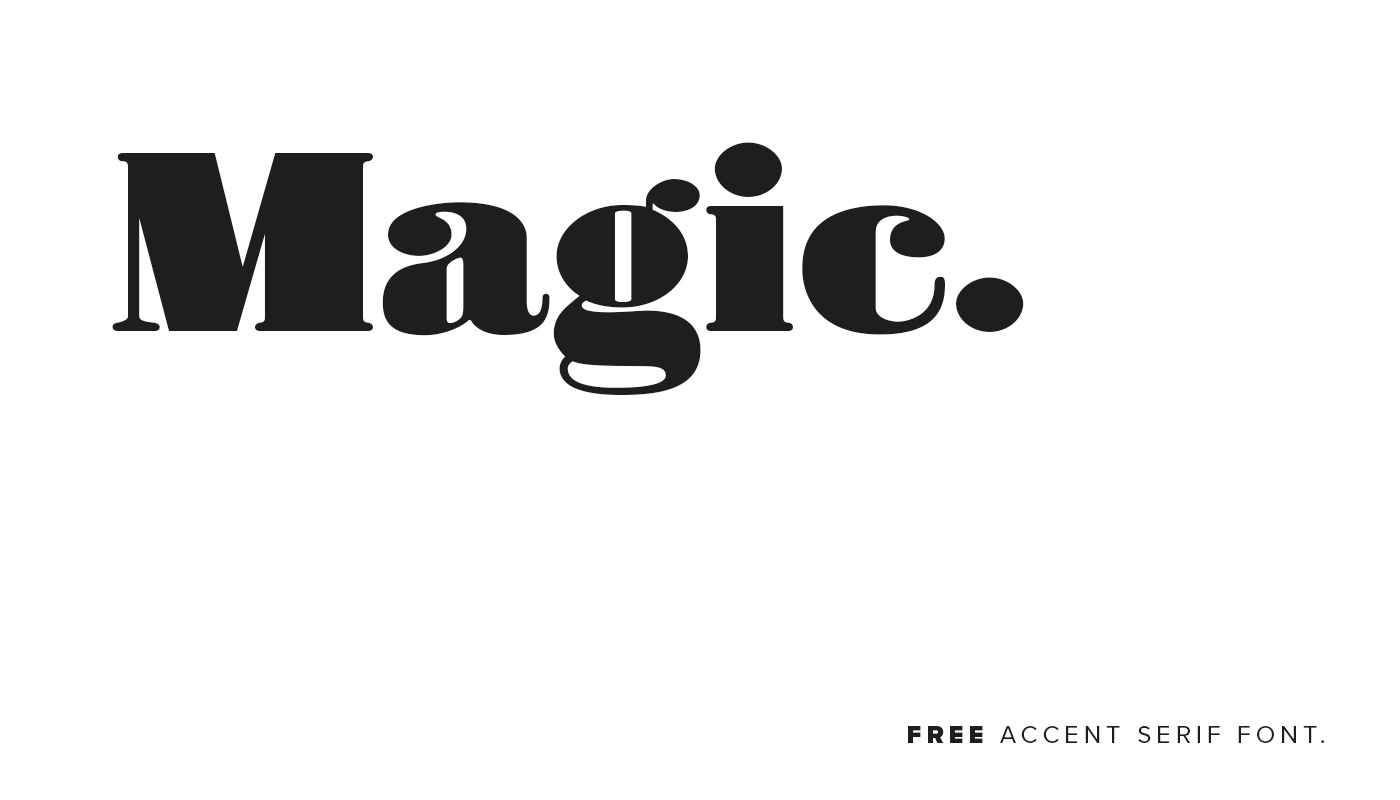
Foerte, from Natali Kalpakova & Ijob Brandstätter, is a hand-crafted, versatile, and strong serif accent font. Foerte is great for headlines, product branding, logo design, magazines, inspiration quotes, titles, apparel, posters and much more.